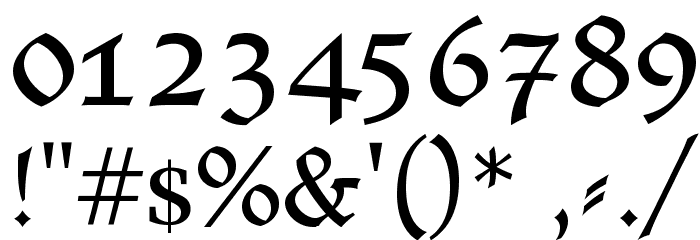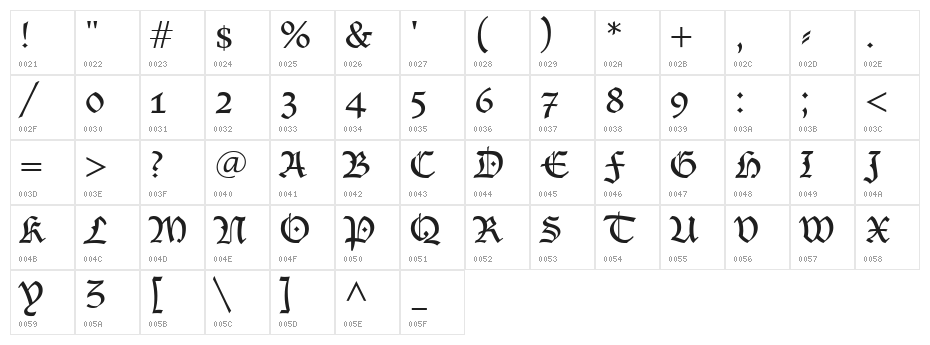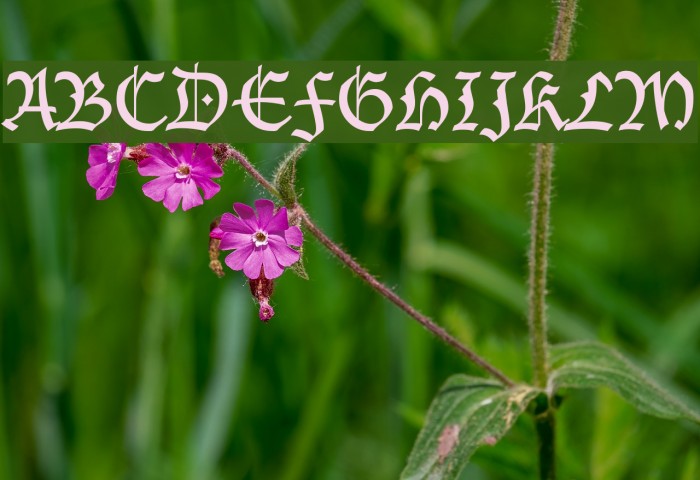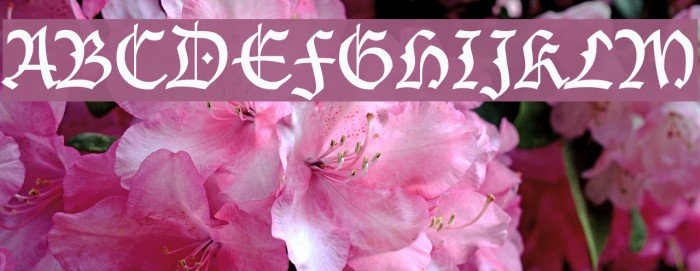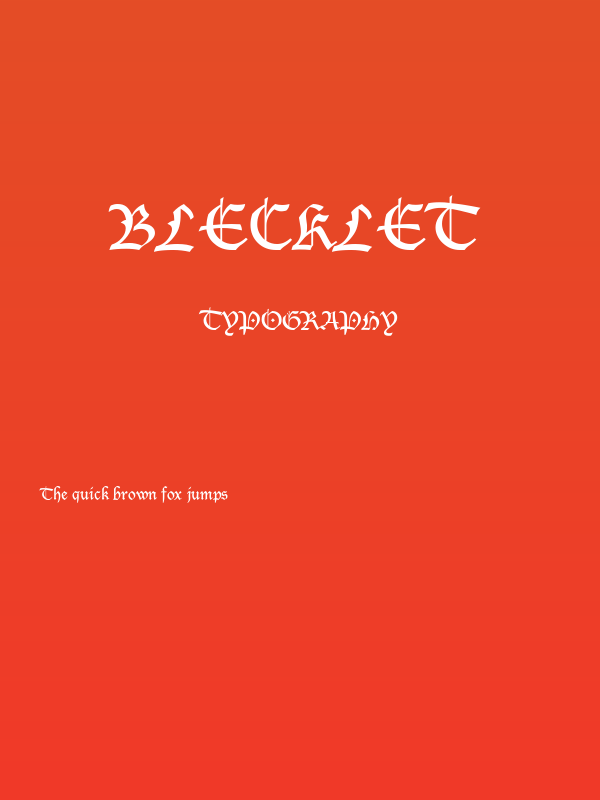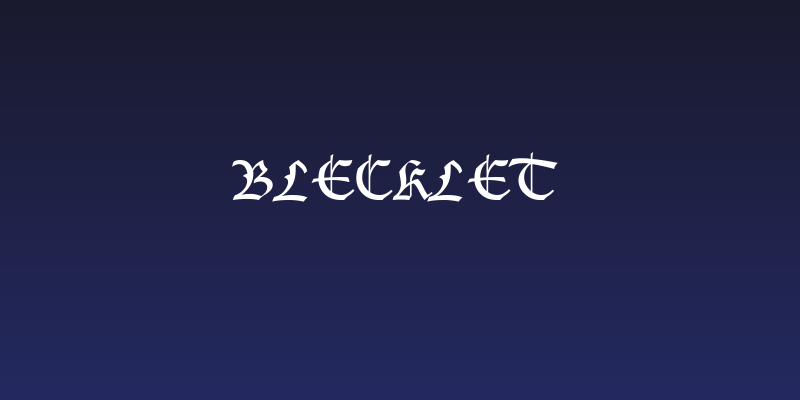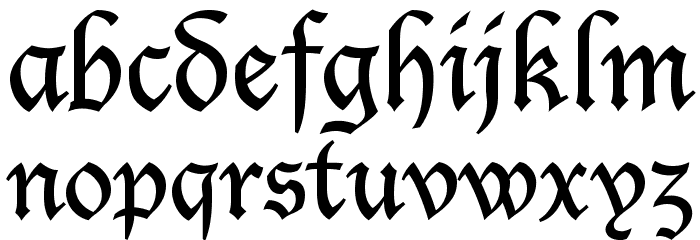
Blecklet Font
Blecklet Description
This font embodies the classic elegance of traditional blackletter styles, characterized by its intricate and ornate letterforms. The uppercase letters feature sharp, angular strokes with pointed serifs, while the lowercase letters maintain a consistent flow with a slightly more rounded appearance. The numerals are bold and distinctive, complementing the overall aesthetic. Special characters are designed with the same attention to detail, ensuring a cohesive look across all glyphs. This font's historical roots are evident in its design, making it suitable for projects that require a touch of medieval or gothic flair.
| Proposed Projects | Ideal for historical documents, wedding invitations, book covers, and branding that requires a classic or gothic touch. |